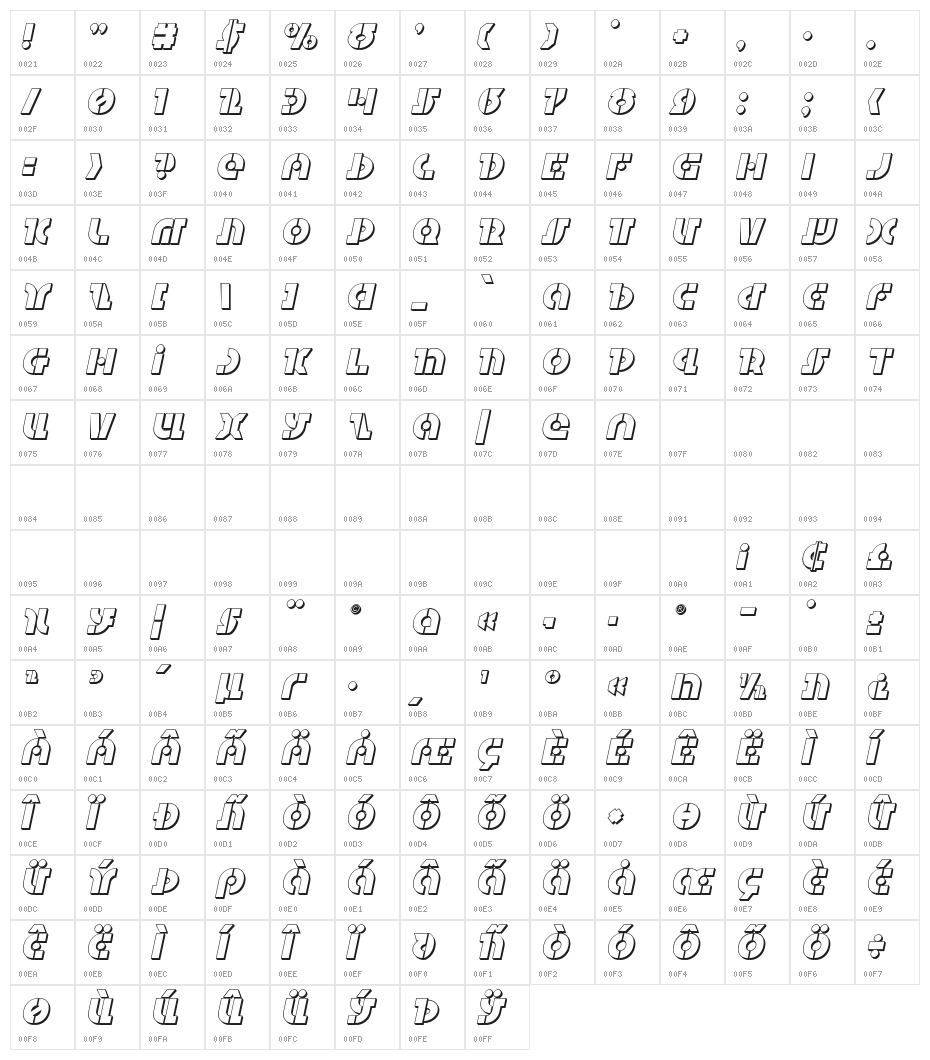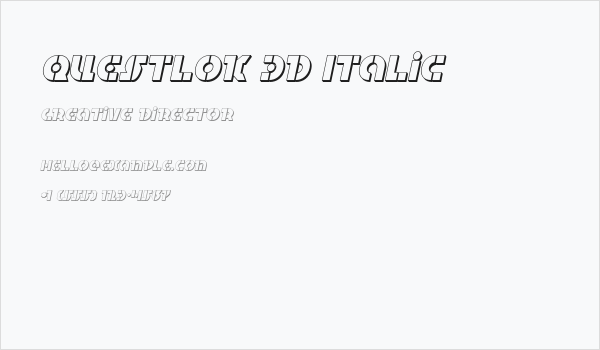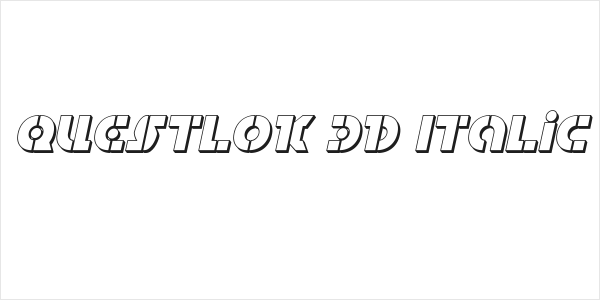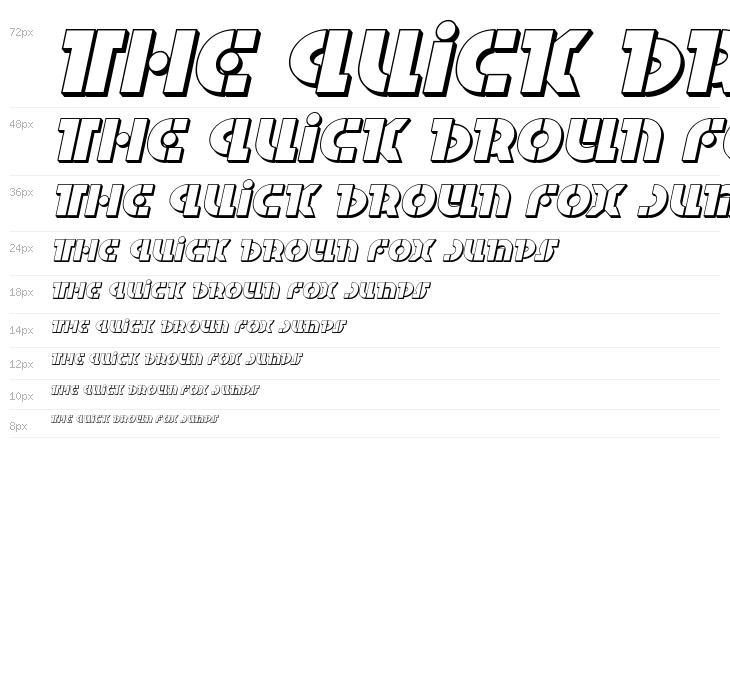
Questlok 3D Italic Font
Questlok 3D Italic Description
This font features a bold and dynamic 3D effect, giving each character a sense of depth and dimension. The italicized style adds a forward-leaning motion, enhancing its energetic and modern appeal. The characters are outlined, creating a hollow look that emphasizes the geometric shapes and angles. This font is particularly eye-catching, making it ideal for designs that require a strong visual impact. The uppercase and lowercase letters maintain a consistent style, with numbers and special characters following the same design principles. The overall aesthetic is futuristic and playful, suitable for creative projects.
| Proposed Projects | Ideal for posters, logos, video game graphics, and any project needing a futuristic or playful touch. |